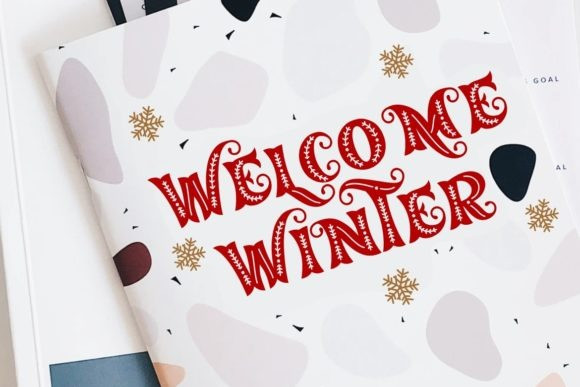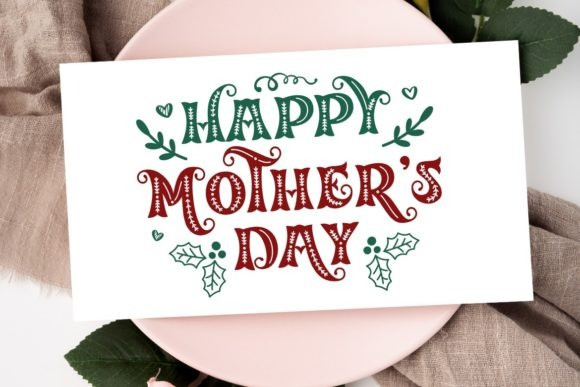
Merry Jolly Font
Merry Jolly Font is a cool and retro styled decorative font. Use this font to add that special touch to any design idea you can think of! This font is PUA encoded which means you can access all of the glyphs and swashes with ease!